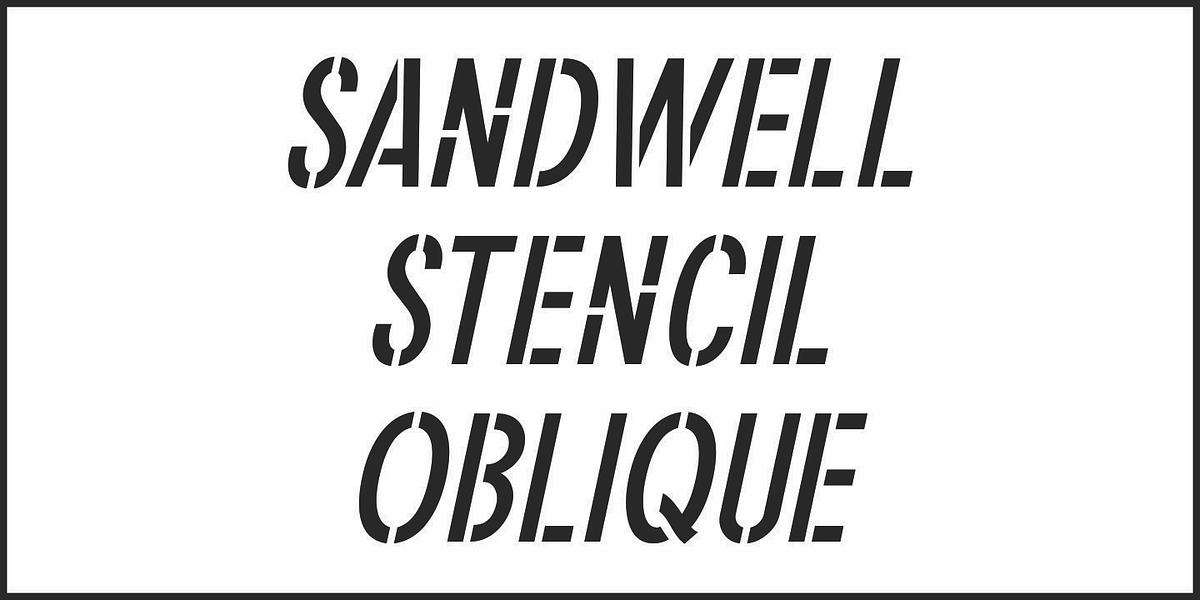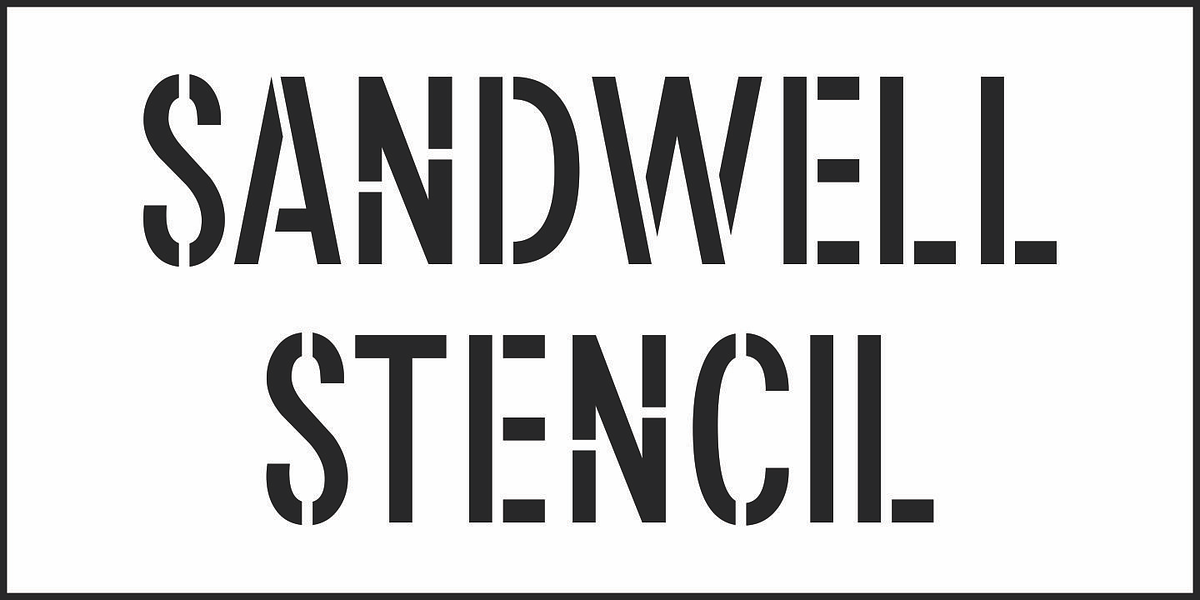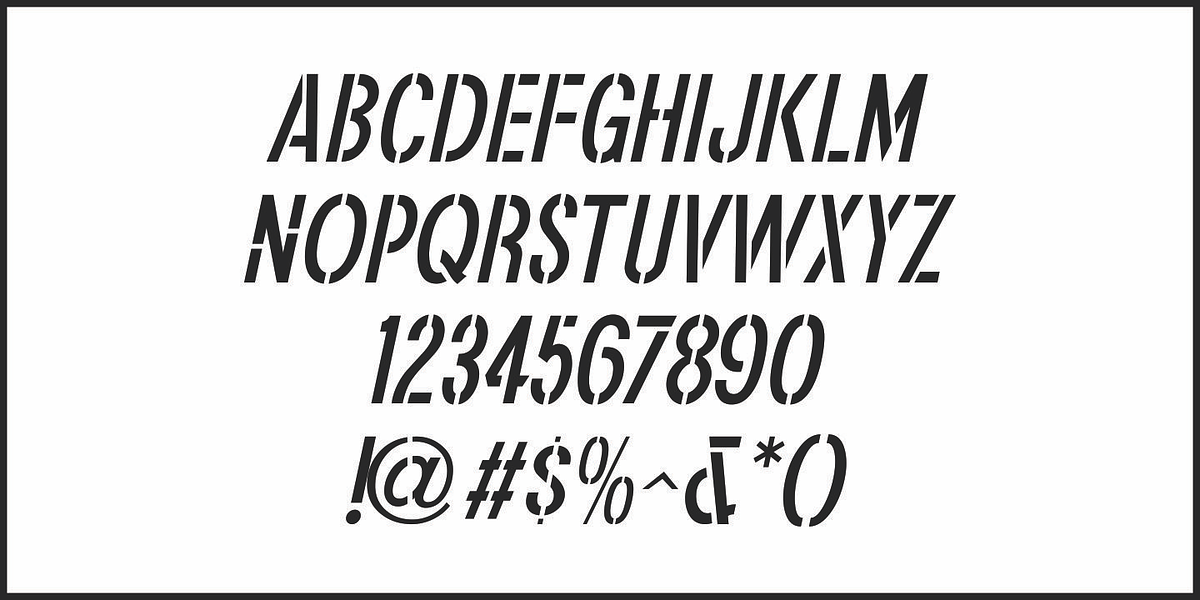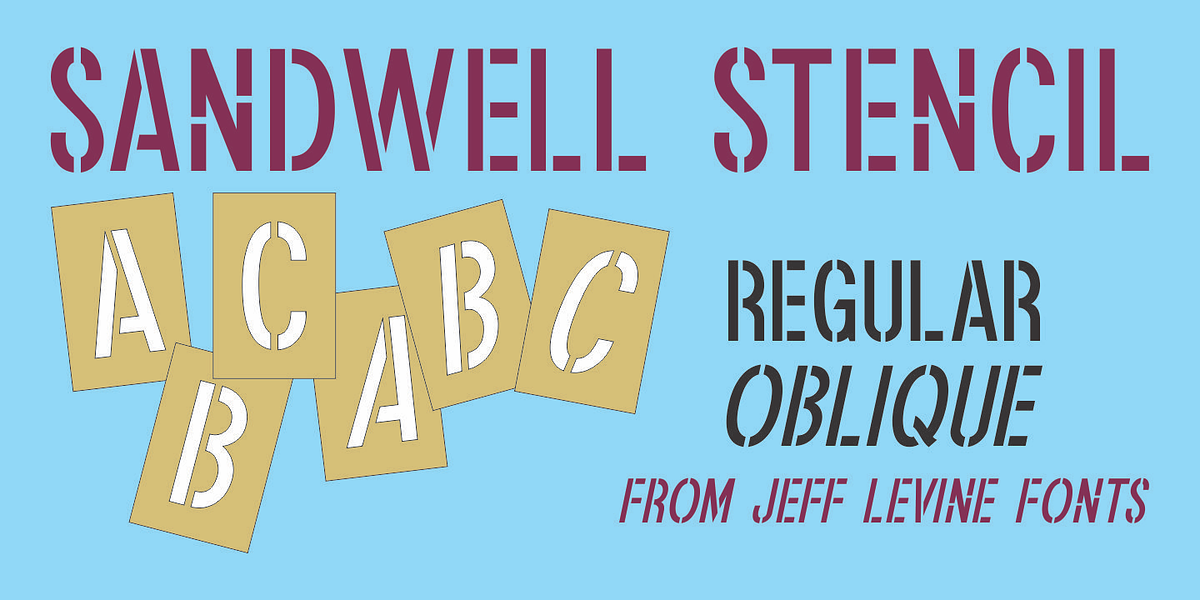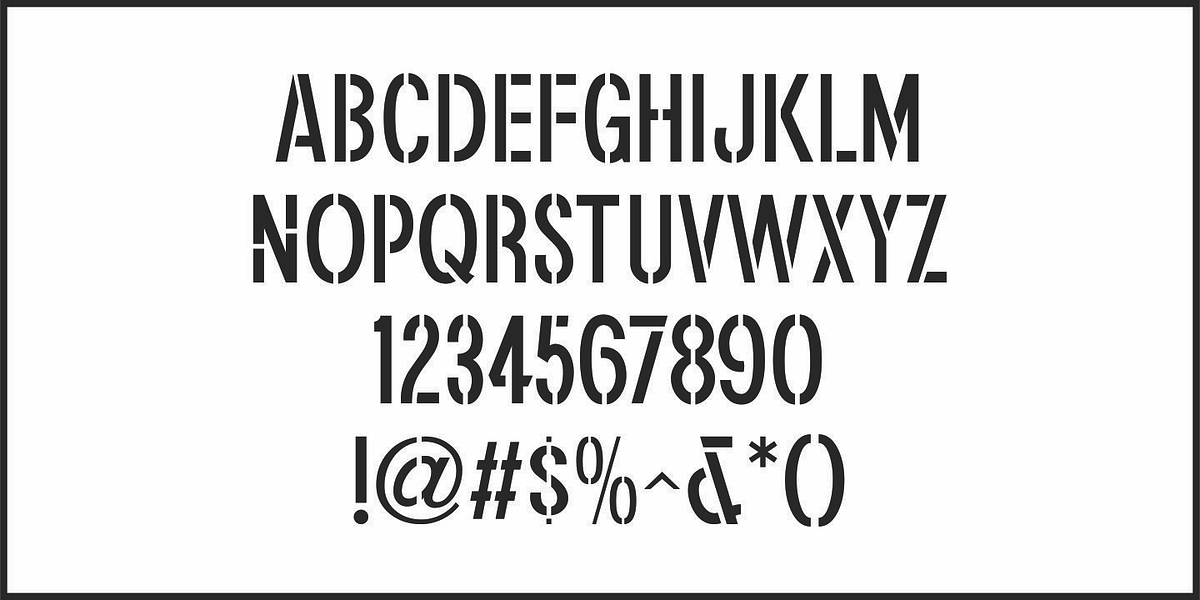
Sandwell Stencil JNL
A vintage British lettering stencil was the inspiration for Sandwell Stencil JNL, which is available in both regular and oblique versions.
This pleasant and condensed stencil font was originally a semi-stencil – many of the characters were made as solid letters ,while the others had a traditional stencil treatment. For the digital version, the stencil treatment was applied to previously solid characters to create a consistency in the overall design.